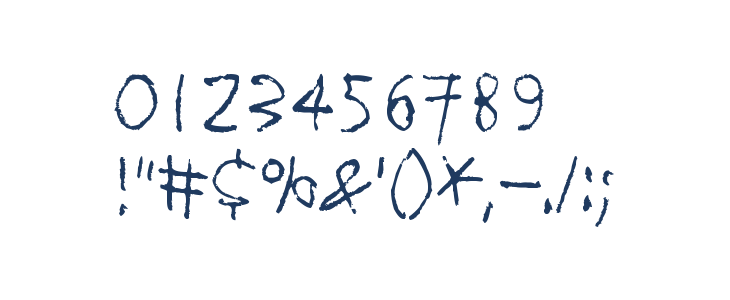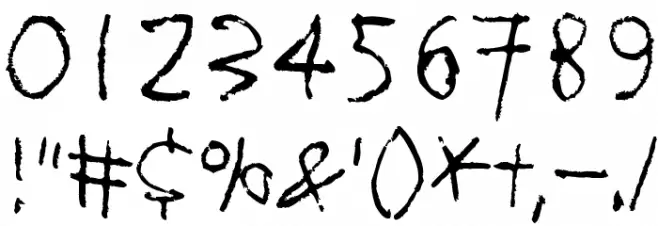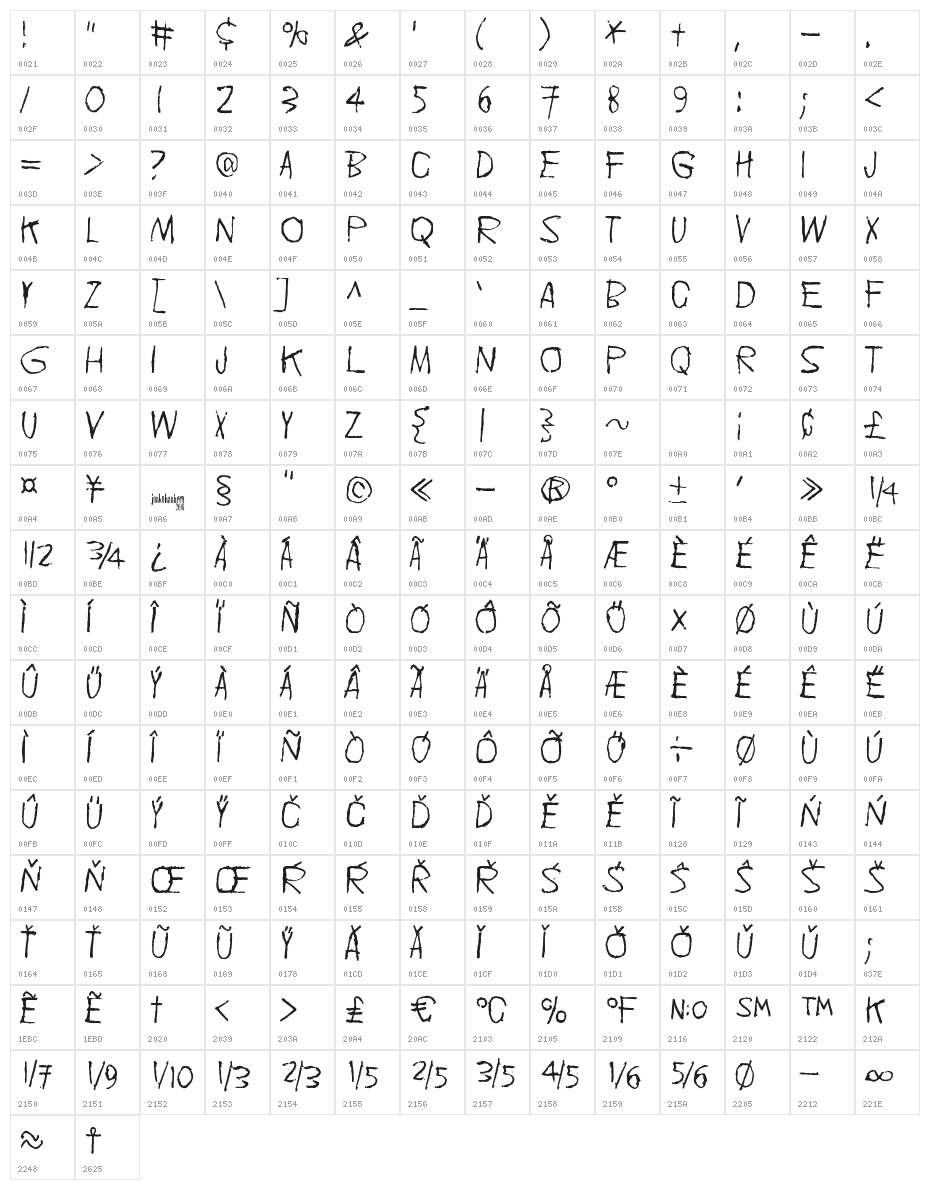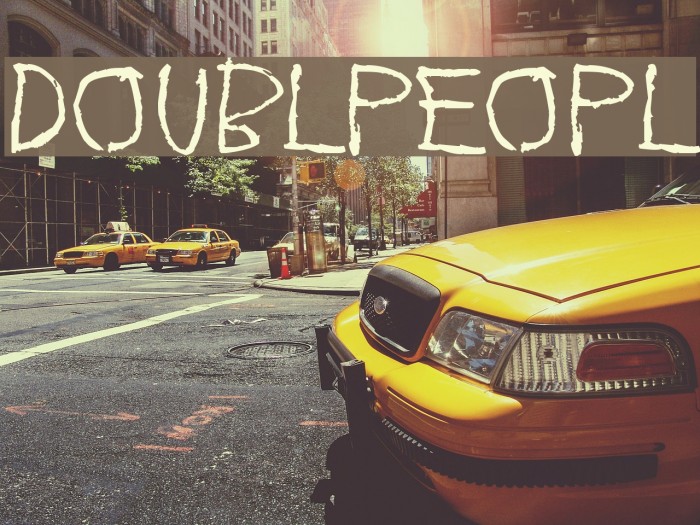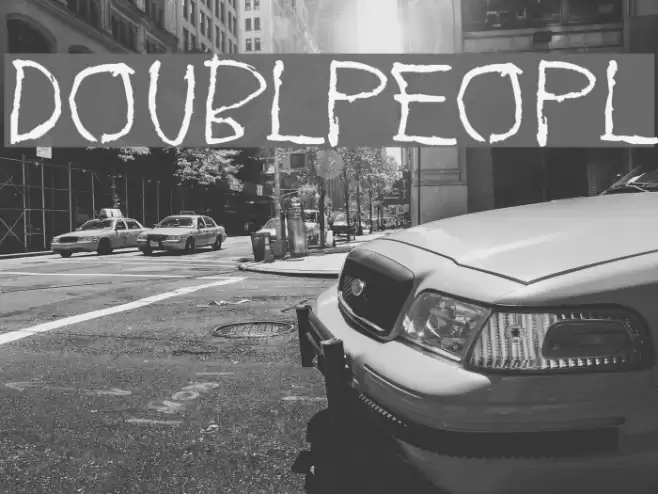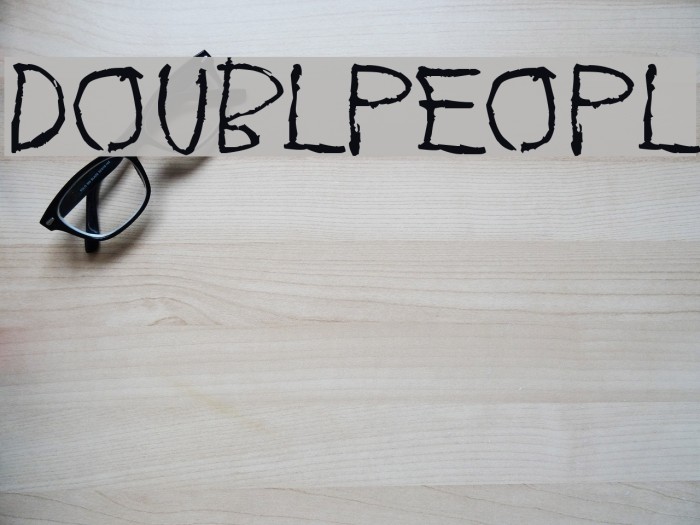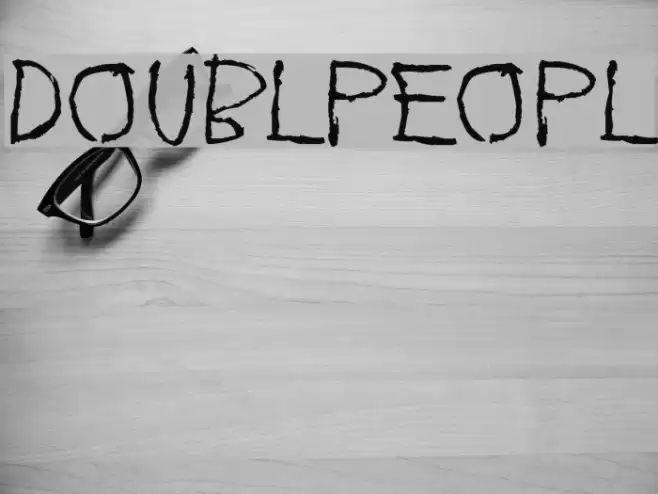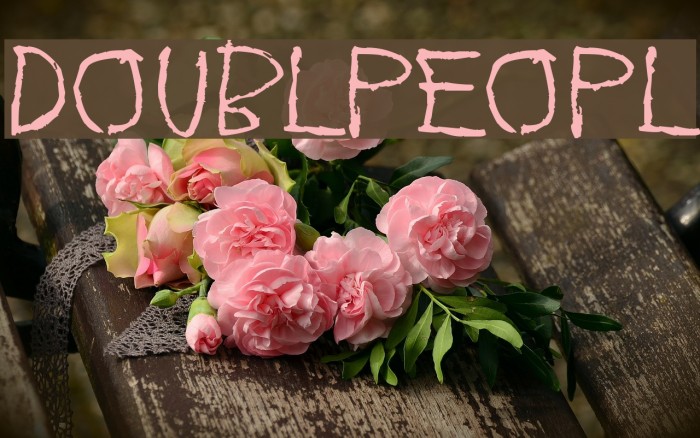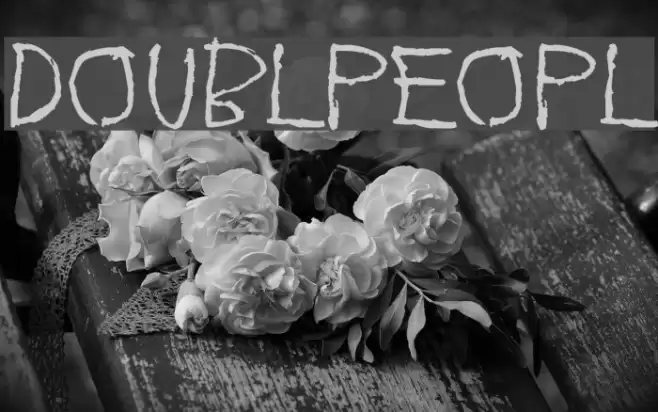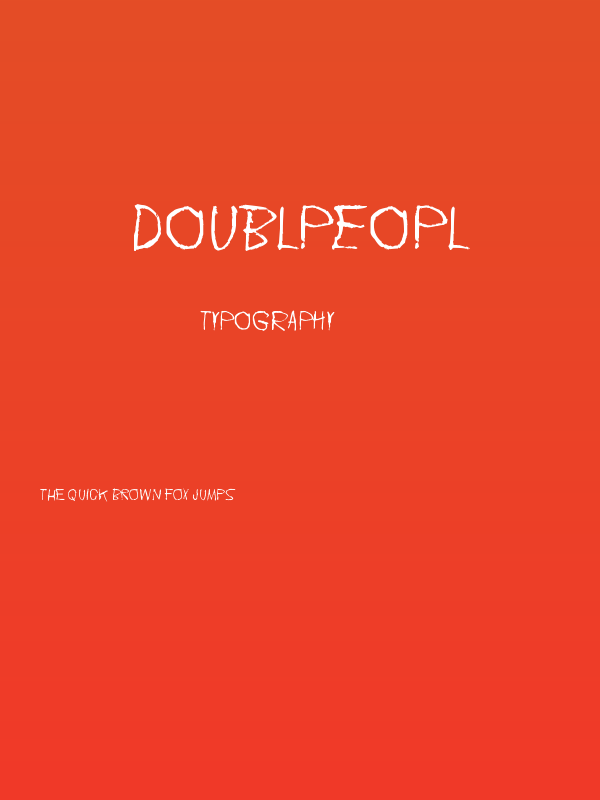
Doublpeopl Font
Doublpeopl Description
This font exhibits a raw, hand-drawn aesthetic, characterized by its irregular, sketch-like strokes that give it a dynamic and energetic feel. The uppercase and lowercase letters maintain a consistent style, with a slightly uneven baseline that adds to its casual charm. The numerals and special characters follow the same hand-crafted appearance, making them blend seamlessly with the alphabet. The overall look is reminiscent of a hurriedly written note, perfect for conveying a sense of urgency or spontaneity. Its unique style makes it stand out, yet it remains legible and clear.
| Overall Style | Casual, Artistic |
| Use Case | Headlines, Creative projects, Informal communications |
| Proposed Projects | Ideal for creative projects such as posters, greeting cards, or any design requiring a personal touch. It can also be used in branding for products that emphasize creativity and individuality. |